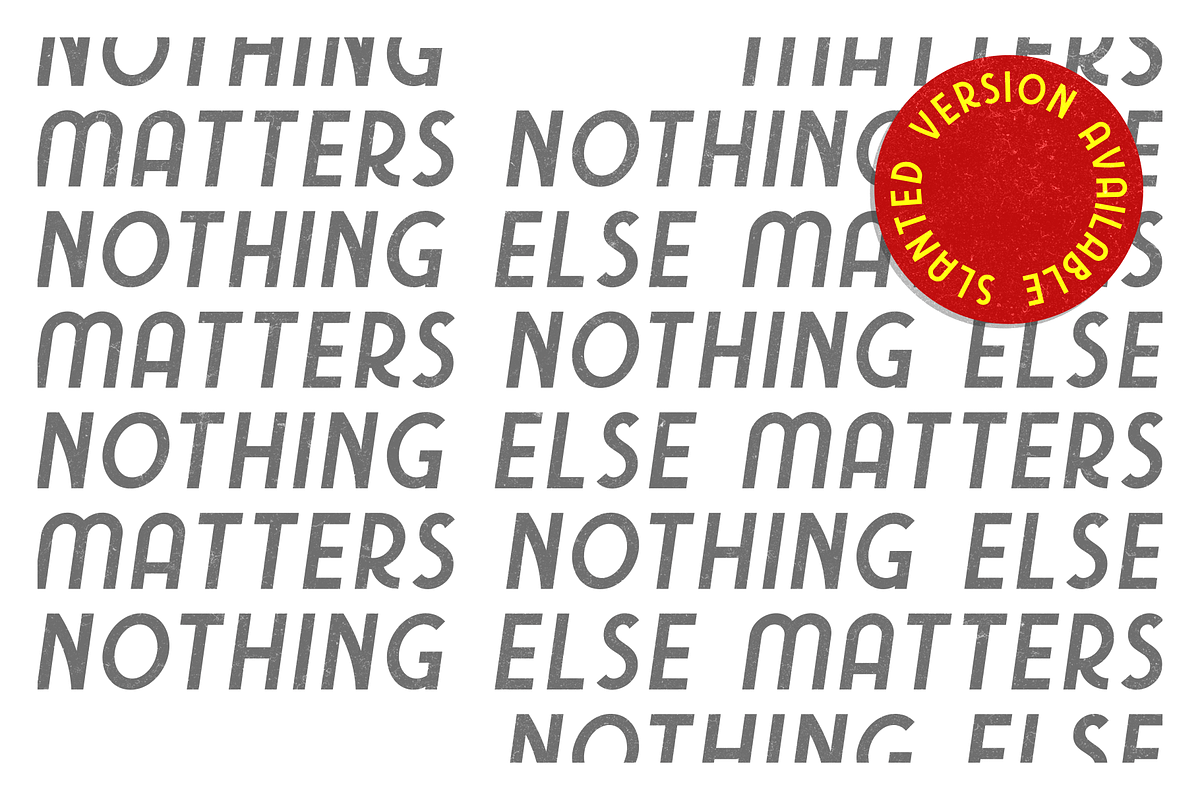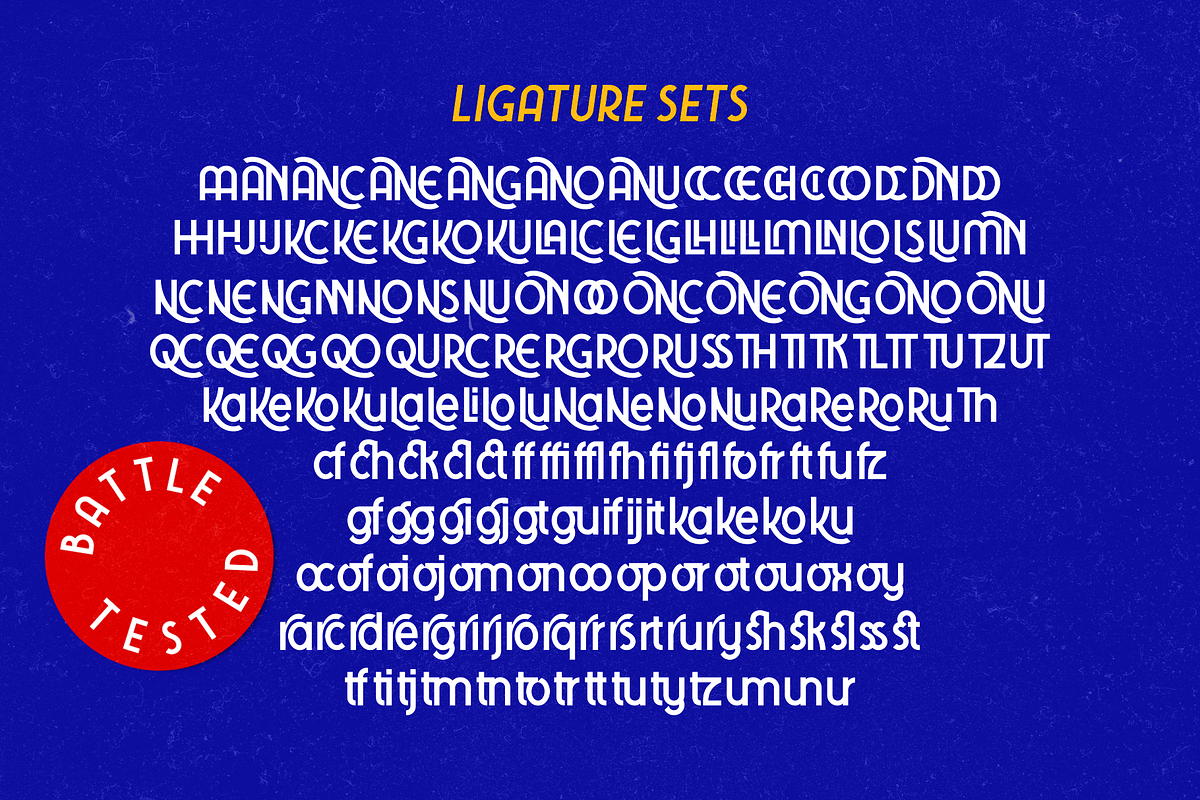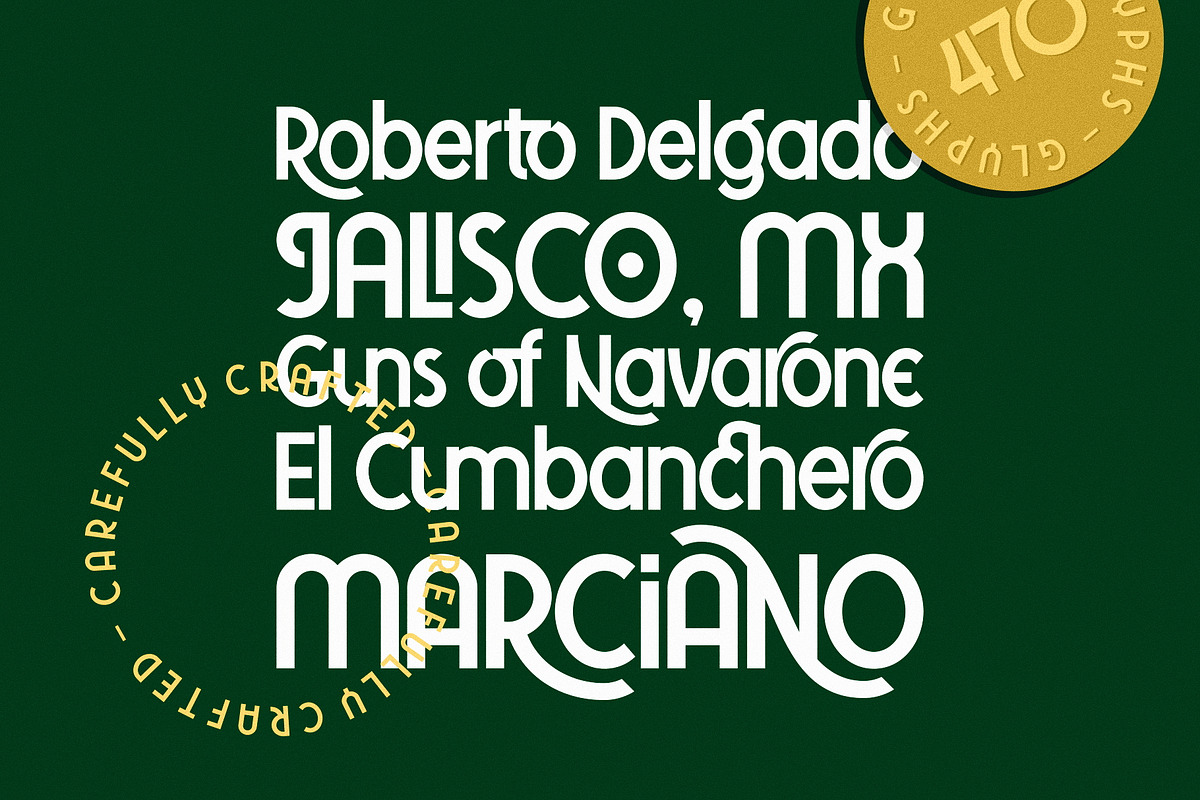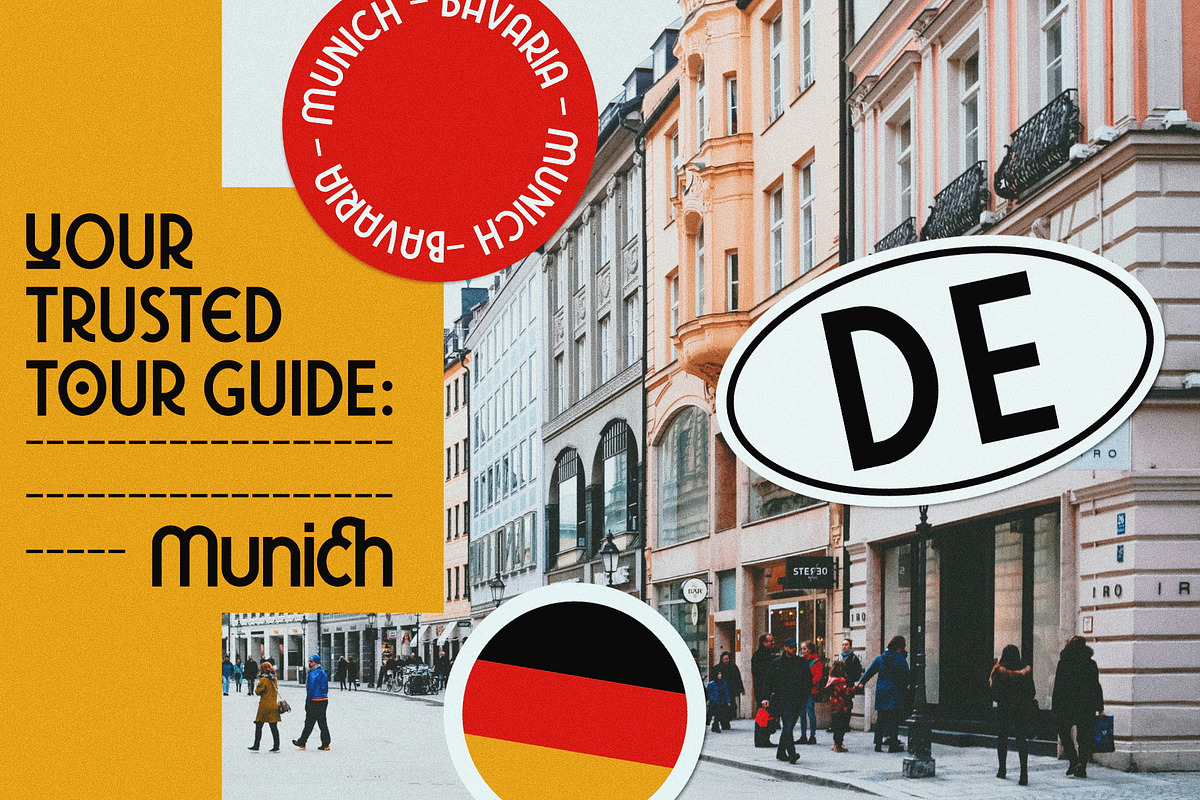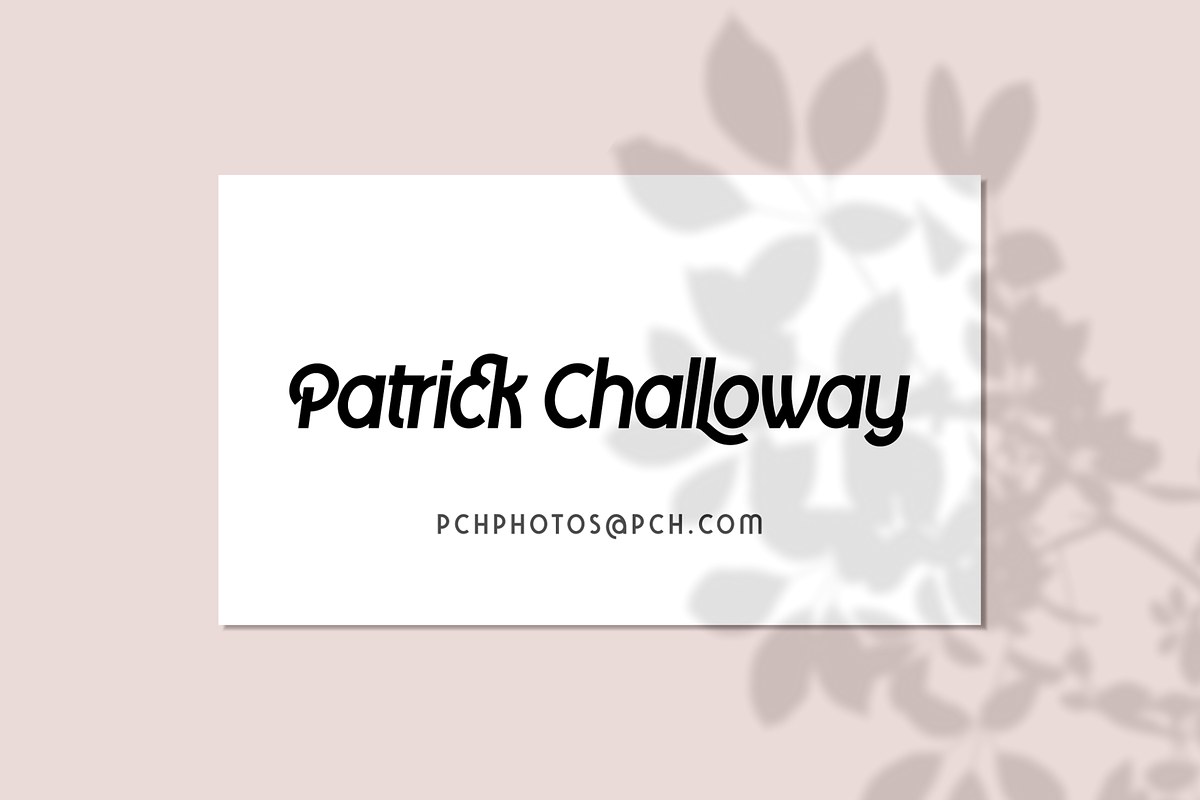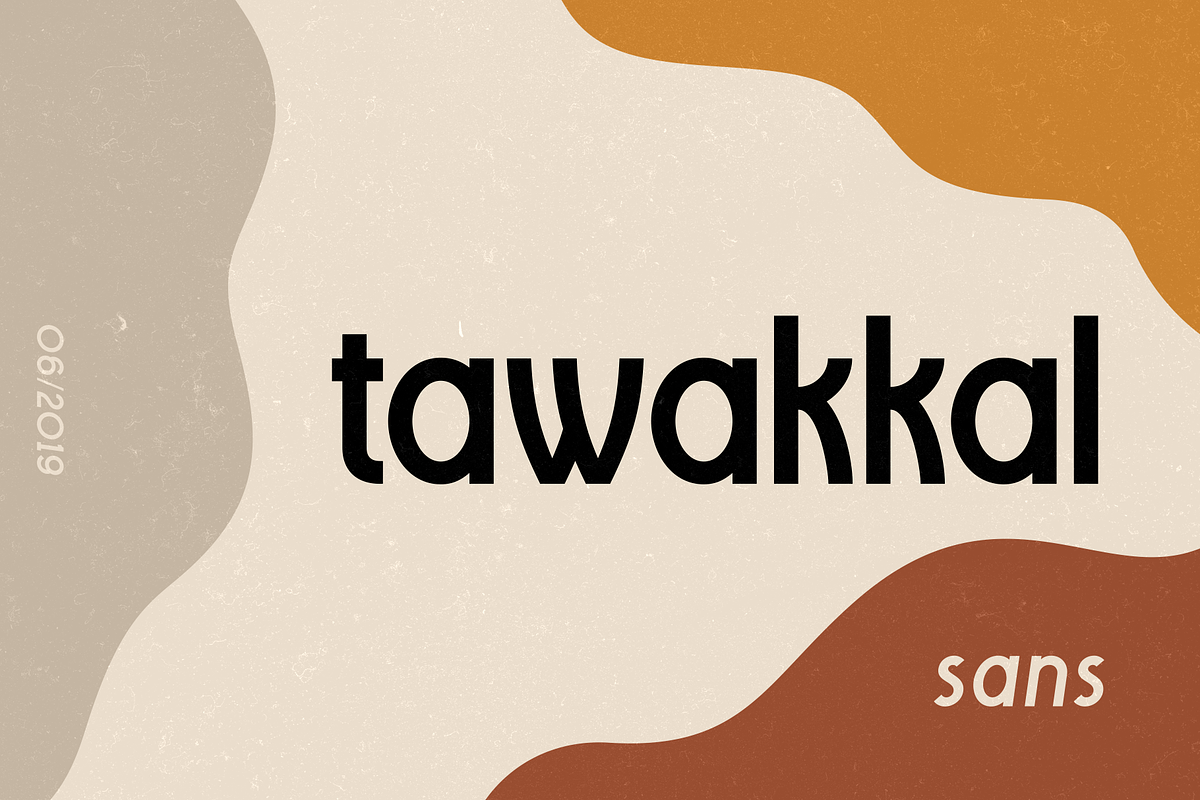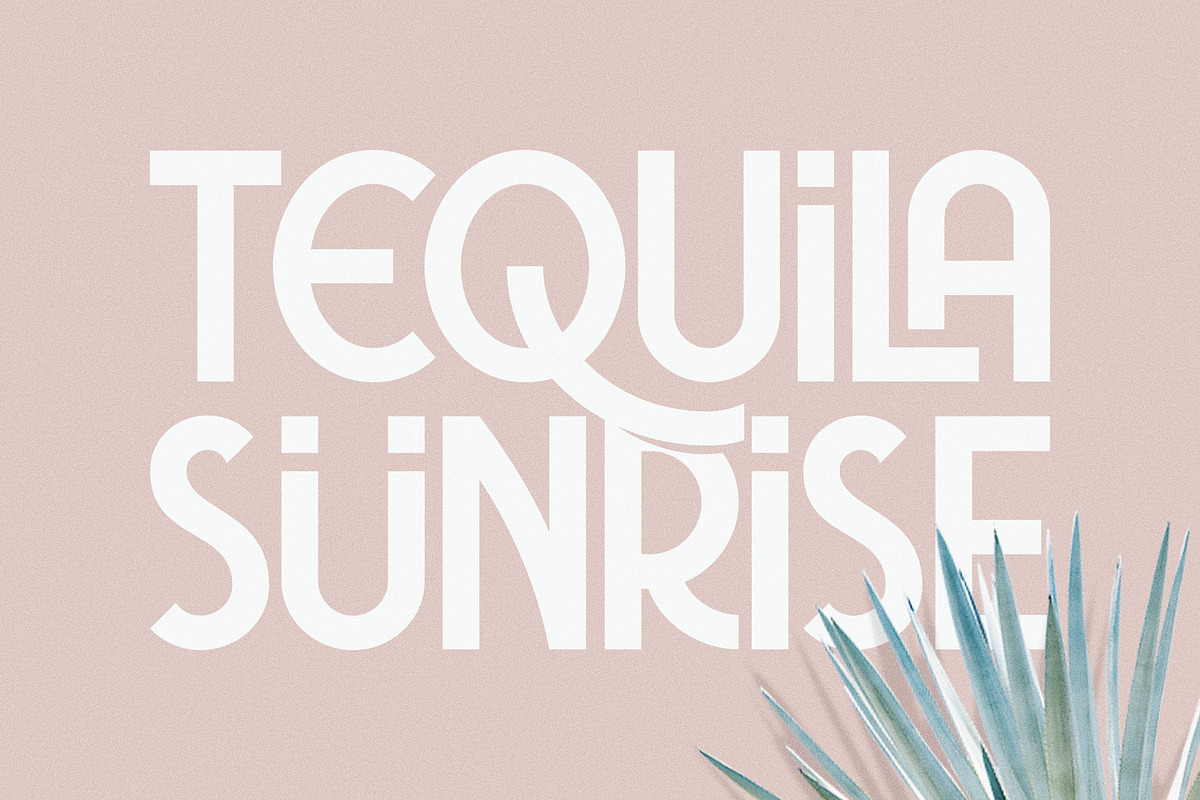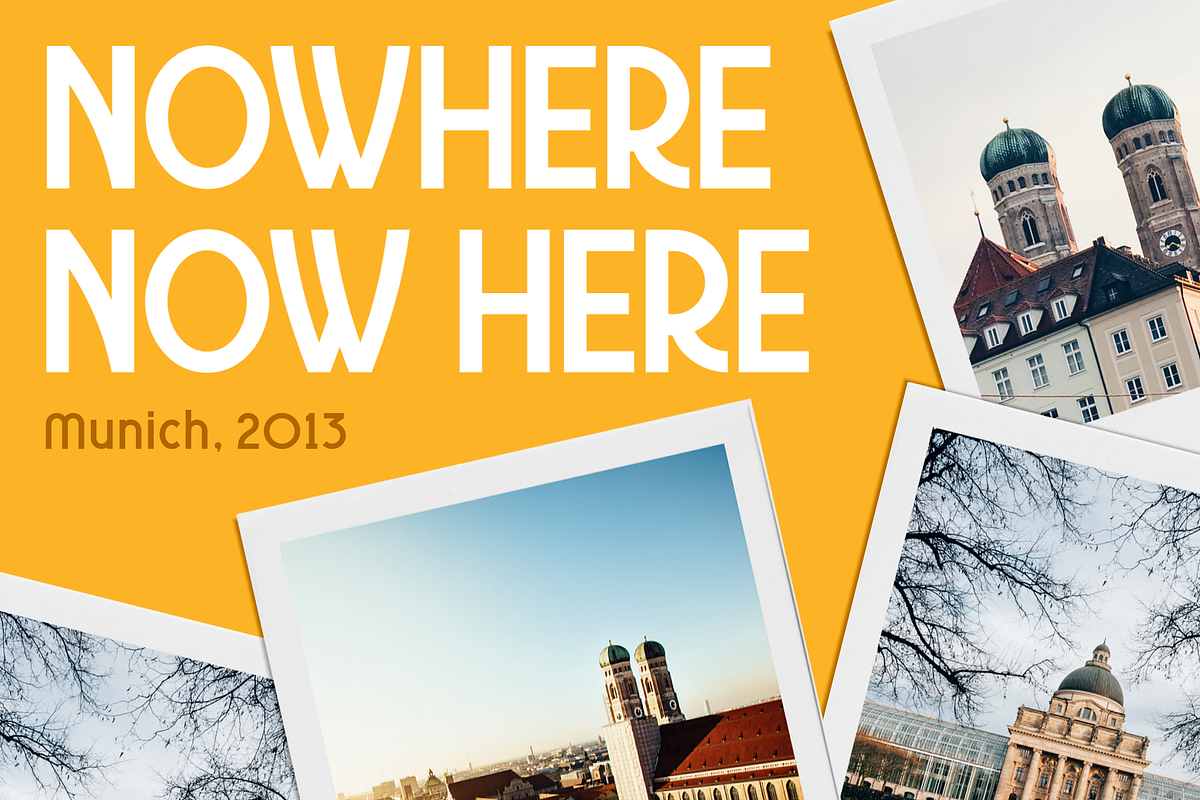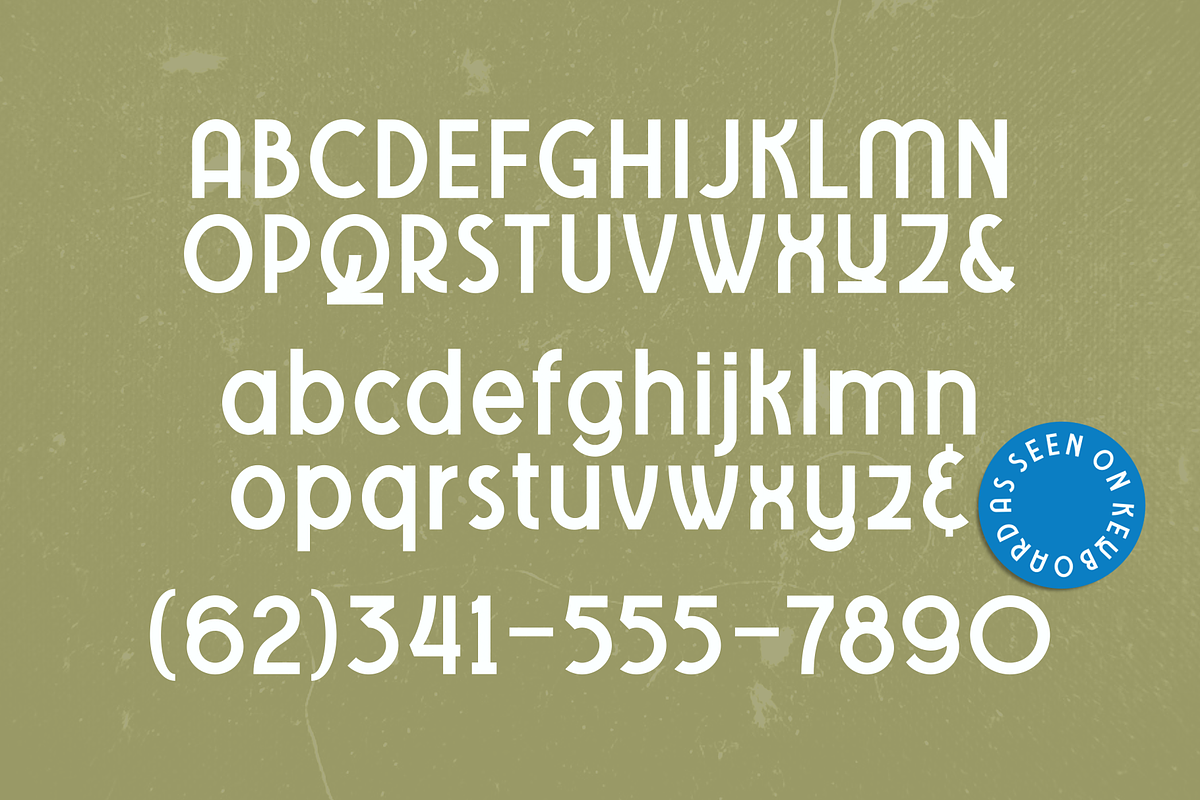
Tawakkal Sans
New month means new font. Let us introduce our latest (another) sans serif; Tawakkal Sans. This font is a mix of modern and classic style, its cleanliness and irregular shapes represent the future, while its elegant curve mimicking old style typography. Tawakkal Sans is highly versatile, you can use it on many designing fields, ex: headline, editorial, quote-writing, tees/poster design, logo, etc. Packed with lots of glyphs (including OpenType chars), this font is a must have weapon on your designing arsenal. Enjoy!
- 450+ glphys consists of standard characters, numerals, and punctuations (OpenType Standard encoding),
- Multilingual character supports (Afrikaans, Albanian, Catalan, Croatian, Czech, Danish, Dutch, English, Estonian, Finnish, French, German, Hungarian, Icelandic, Italian, Lithuanian, Maltese, Norwegian, Polish, Portuguese, Slovenian, Spanish, Swedish, Turkish, Zulu),
- OpenType features such as alternate characters, stylistic sets, (lots of) ligatures, etc,
- PUA (Private Use Area) Encoded Characters (you can access the OpenType features without additional design software),
- Two styles: Regular, and Italic,